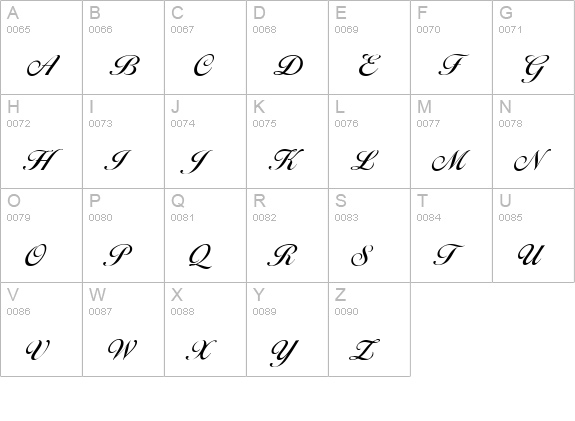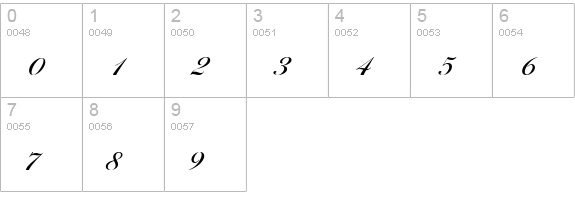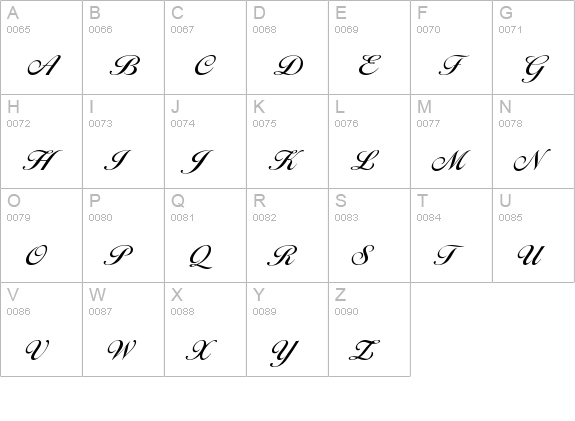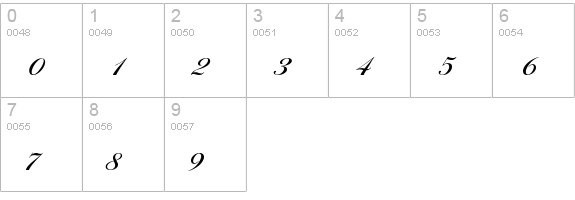
BallantinesSerial-Medium-Regular Font Details
BallantinesSerial-Medium-Regular is a balanced, medium-weight variant in the BallantinesSerial typeface family \xE2\x80\x94 well suited to sub-headlines, navigation, and balanced editorial work.
BallantinesSerial-Medium-Regular is a versatile and sophisticated font that exudes a timeless elegance and modern flair. Its clean lines and balanced proportions make it suitable for a wide range of design projects, from branding to editorial layouts. This font offers a sense of authority and professionalism, making it ideal for corporate communications, presentations, and marketing materials. Its medium weight adds just the right amount of emphasis without overpowering the text. BallantinesSerial-Medium-Regular is a highly legible and versatile typeface that can be used for both headlines and body text, ensuring consistency in your design projects. Whether you're creating a print piece or a digital design, this font will elevate your work with its classic yet contemporary aesthetic. Best of all, BallantinesSerial-Medium-Regular is available for free download at FontsMarket.com. So you can easily access this high-quality font and enhance your designs without any cost. Don't miss out on this opportunity to elevate your projects with the timeless appeal of BallantinesSerial-Medium-Regular.